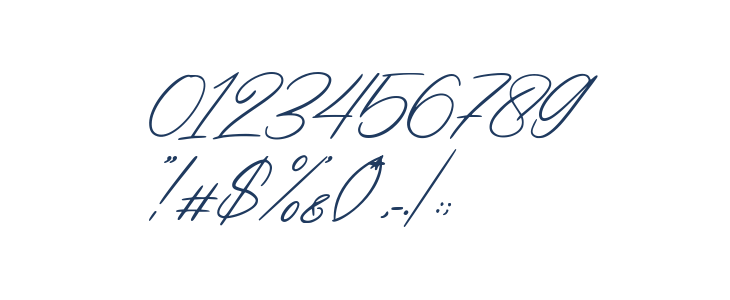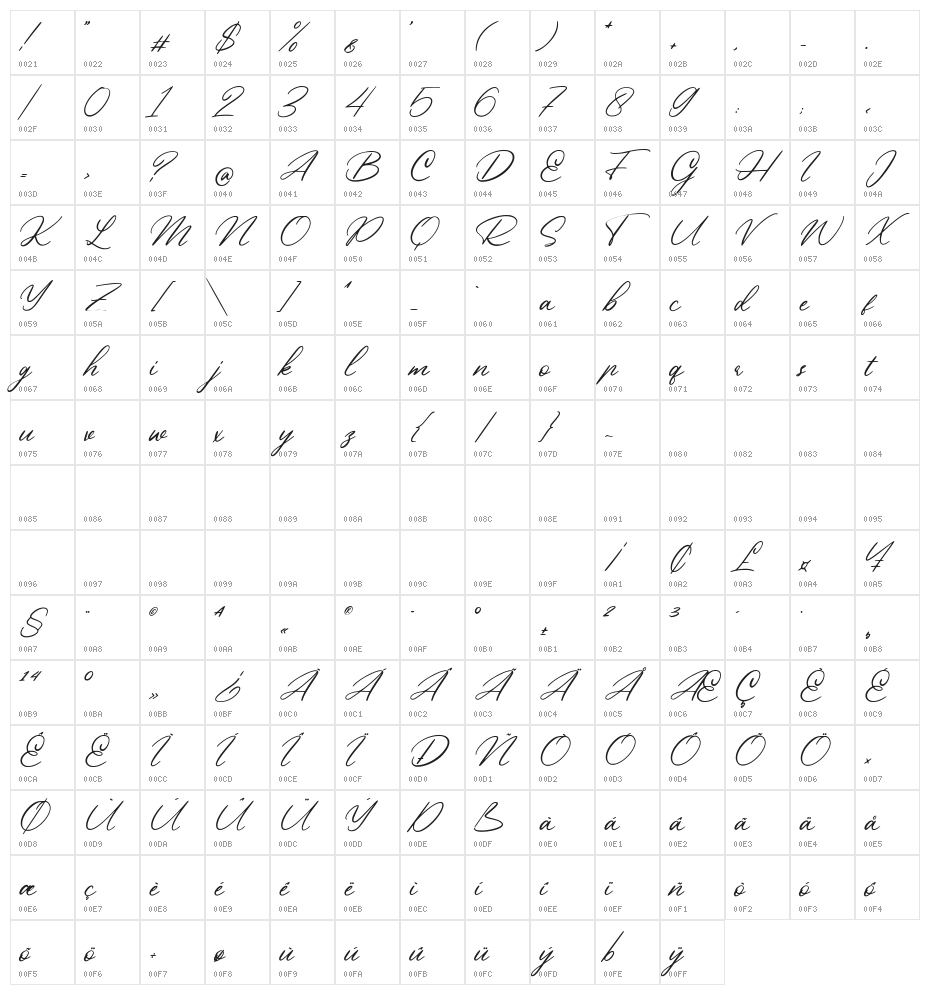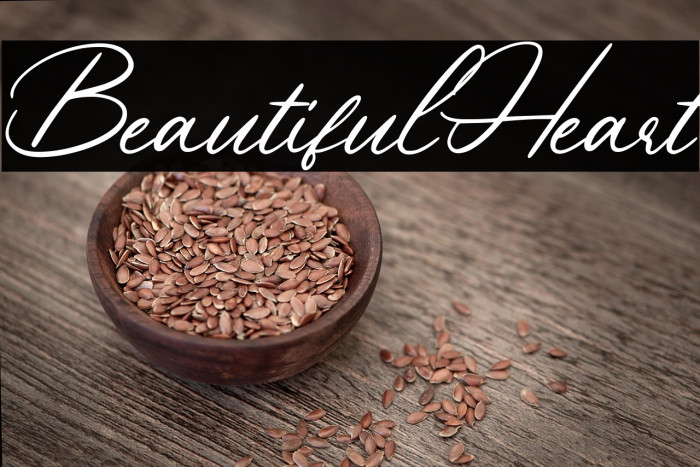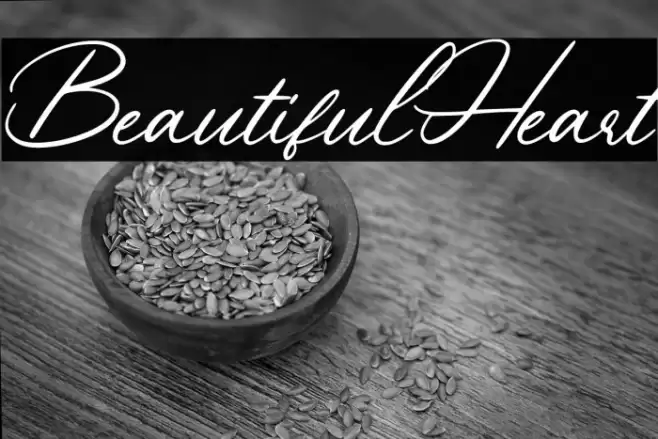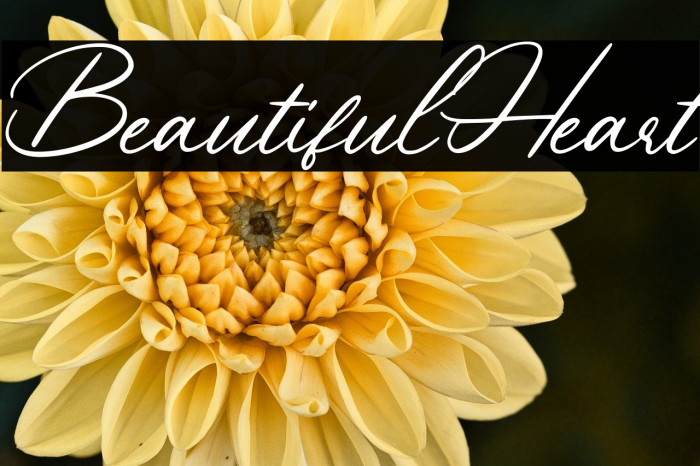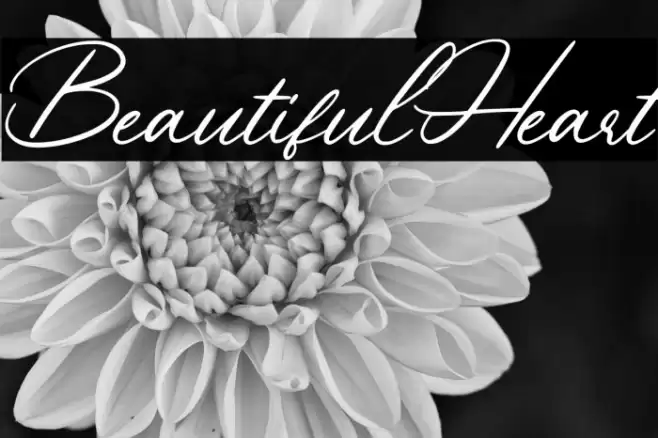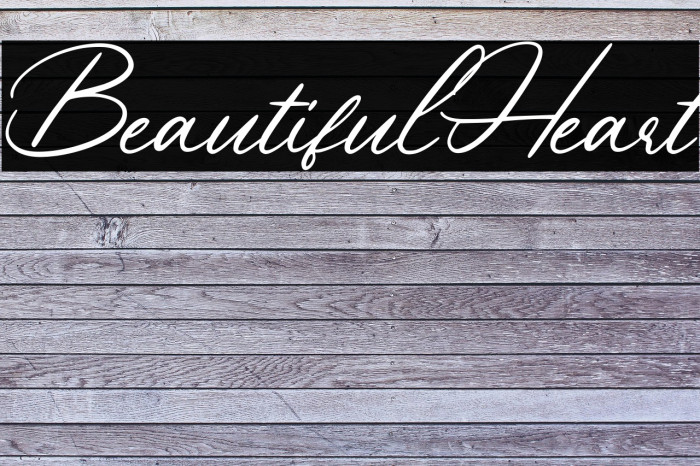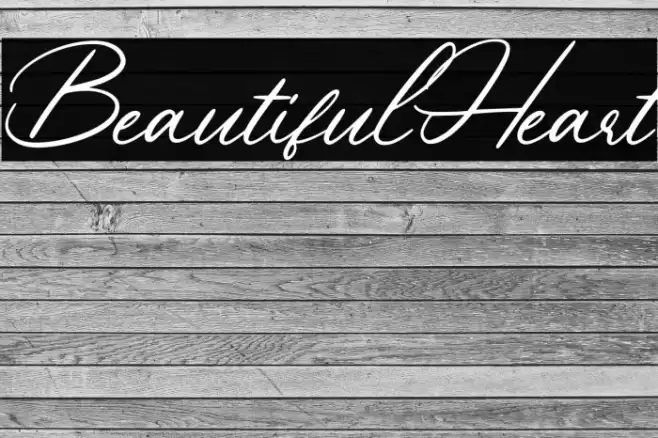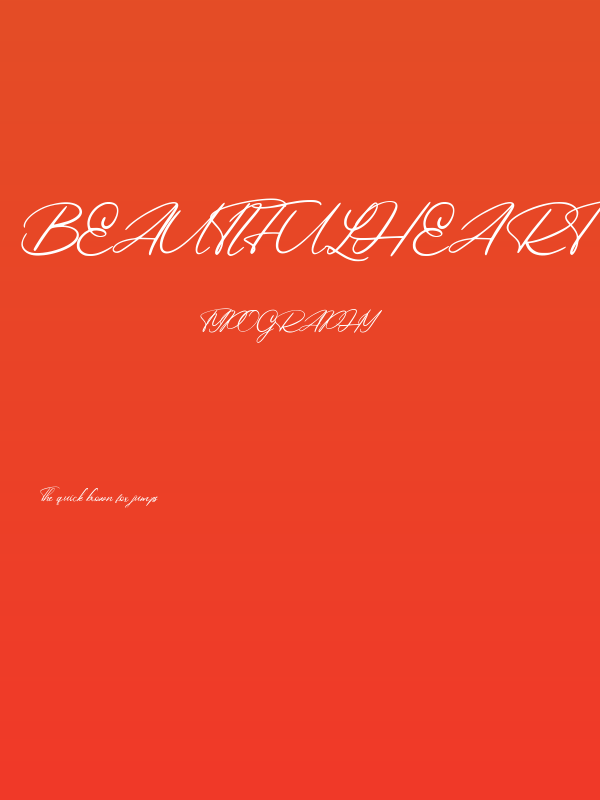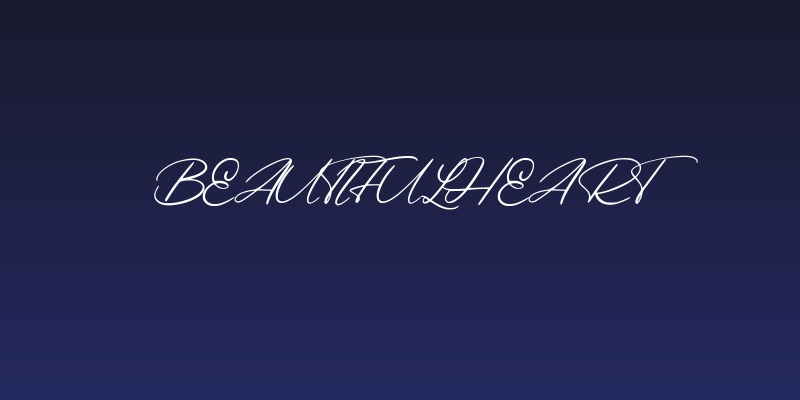
BeautifulHeart Font
BeautifulHeart Description
This elegant script font features a flowing, cursive style with smooth, connected strokes that mimic natural handwriting. The uppercase letters are slightly more ornate, with flourishes that add a touch of sophistication. The lowercase letters maintain a consistent flow, enhancing readability while preserving the font's artistic flair. Numbers and special characters are designed with the same attention to detail, ensuring a cohesive look across all text. The font's overall appearance is both graceful and dynamic, making it suitable for a variety of creative applications.
| Proposed Projects | Ideal for wedding invitations, greeting cards, branding, and elegant packaging designs. |